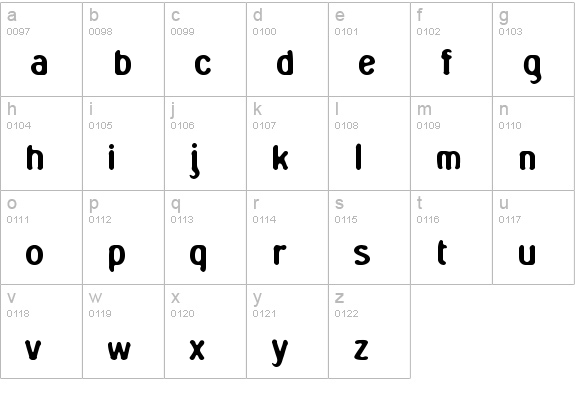
Oculus-CGauge Font Details
Oculus-CGauge is a modern and stylish font that exudes sophistication and elegance. Its sleek lines and unique design make it perfect for a wide range of design projects, from branding to packaging to digital content. The font features a clean and contemporary look that is sure to make your text stand out. What's even better is that Oculus-CGauge is available for free download at FontsMarket.com. This means you can easily access this stunning font and use it in your projects without any cost. So why wait? Add a touch of class to your designs with Oculus-CGauge today!